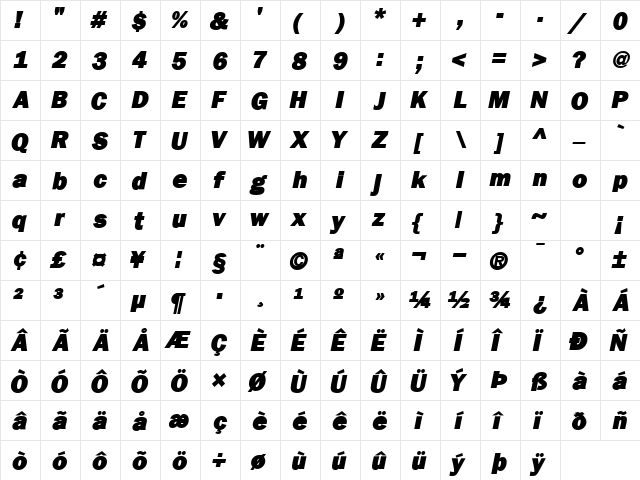
FranklinGothicBlackSSK BoldItalic Font Preview
Design Context for FranklinGothicBlackSSK Typeface
FranklinGothicBlackSSK takes a clean, functional approach — its unadorned letterforms prioritise legibility and work reliably across screen and print environments. Its italic angle brings a sense of urgency and motion to the letterforms. The heavy weight commands attention and anchors typographic hierarchies.
A strong choice for UI design, app interfaces, bold signage, and corporate brand systems.
Font Pairing: Use FranklinGothicBlackSSK for headlines alongside a lighter-weight sans or serif for body copy to establish clear visual hierarchy.
Pro Tip: Pair FranklinGothicBlackSSK with a display or serif font for headlines — its neutral character makes it an excellent supporting player in complex typographic systems.